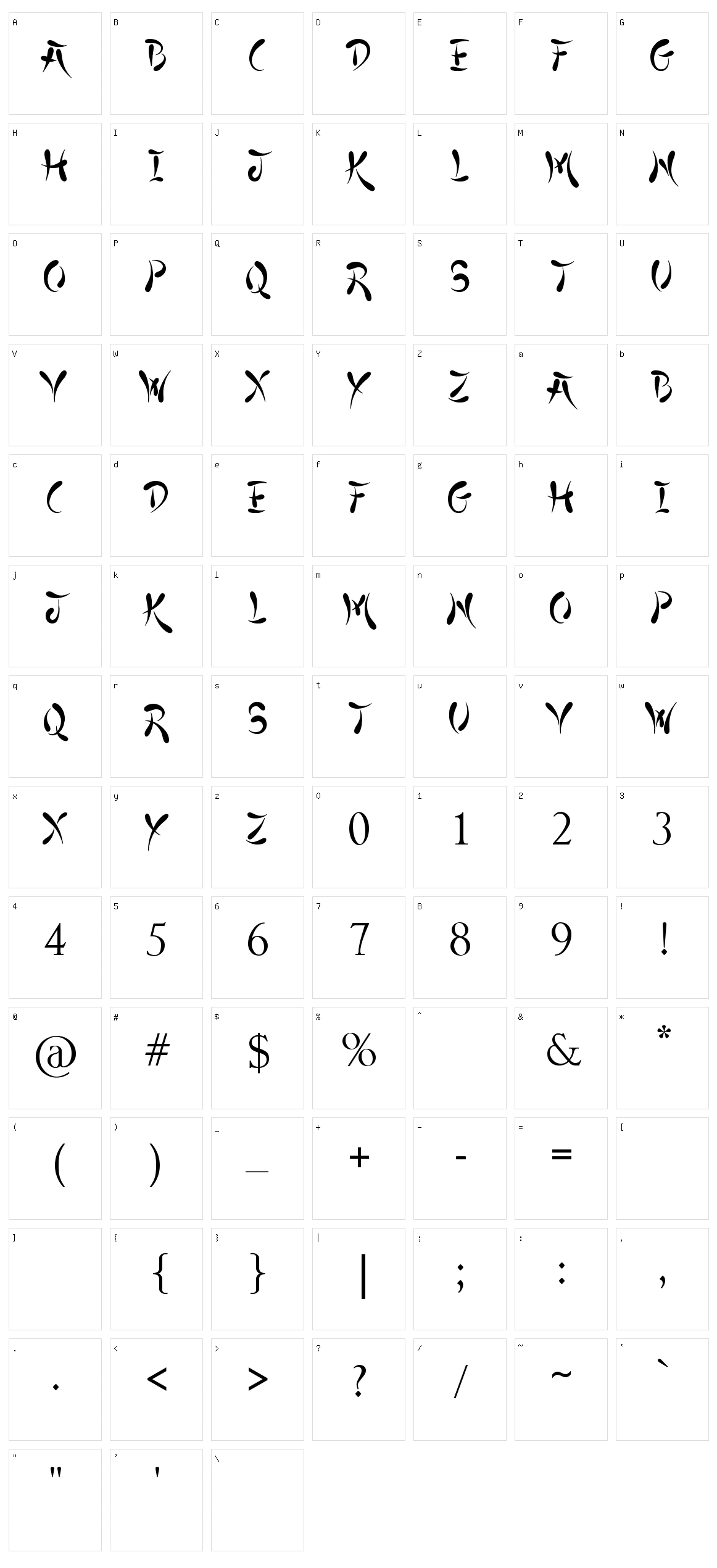
The free font Japanese Style is carefully designed by JSH creates, showcasing a thoughtful balance of creativity and usability and falls under the Asian font style. When you download the ZIP file, it contains only 15.98 KB of font files, making it lightweight and quick to download. Please review the license details below to understand permitted usage and distribution rights. If license information is not available, we recommend using this font for personal projects only or contacting the author directly for commercial usage permissions.